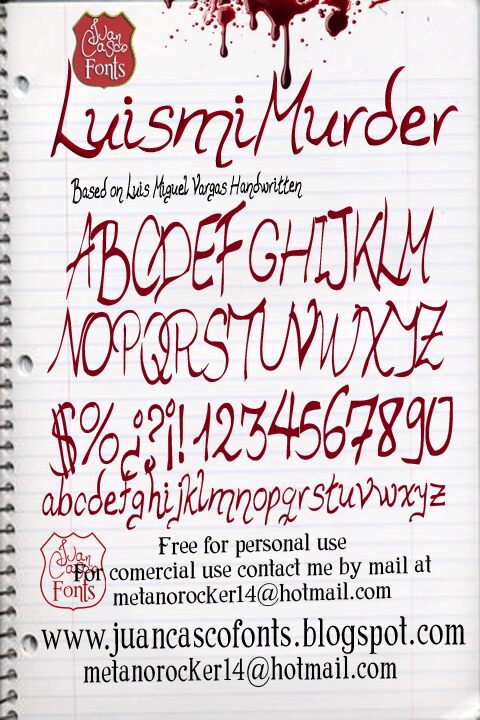
Luismi Murder, created by Luis Miguel Vargas and Juan Casco, is a free expressive brush script with sweeping calligraphic strokes. Strong changes in stroke width, sharp turns, and long flourishes give the letters the quick motion of an oversized handwritten signature.
It is especially convincing in fashion branding, where its dramatic line can shape a memorable wordmark. Its slightly unruly writing also suits album covers and invitations. Cosmetics packaging is another credible setting, since all four uses benefit from lettering that feels authored by hand rather than drawn to a fixed typographic grid.